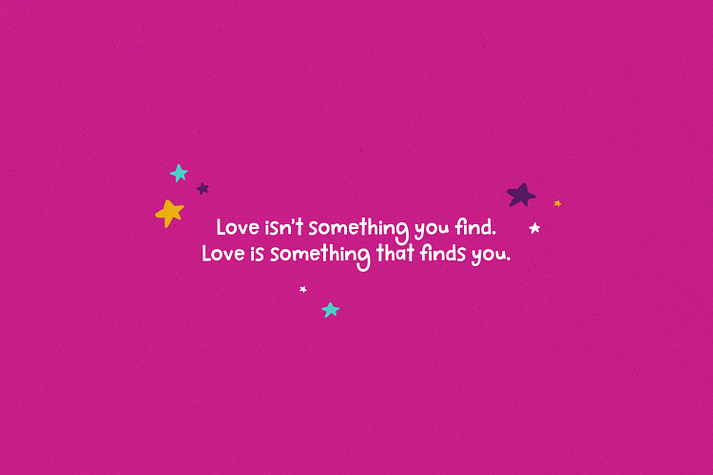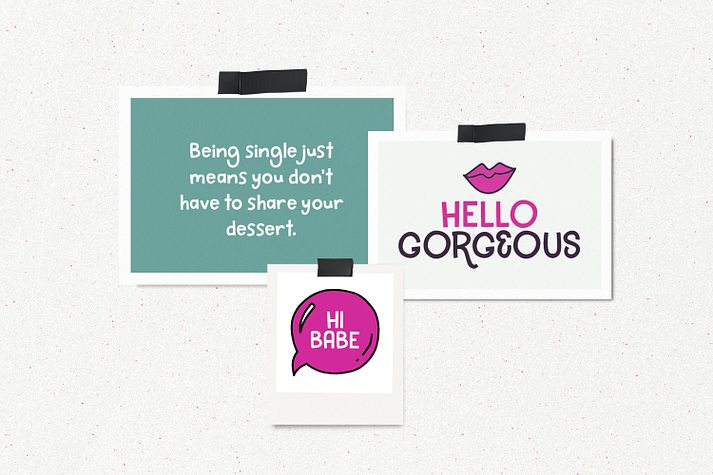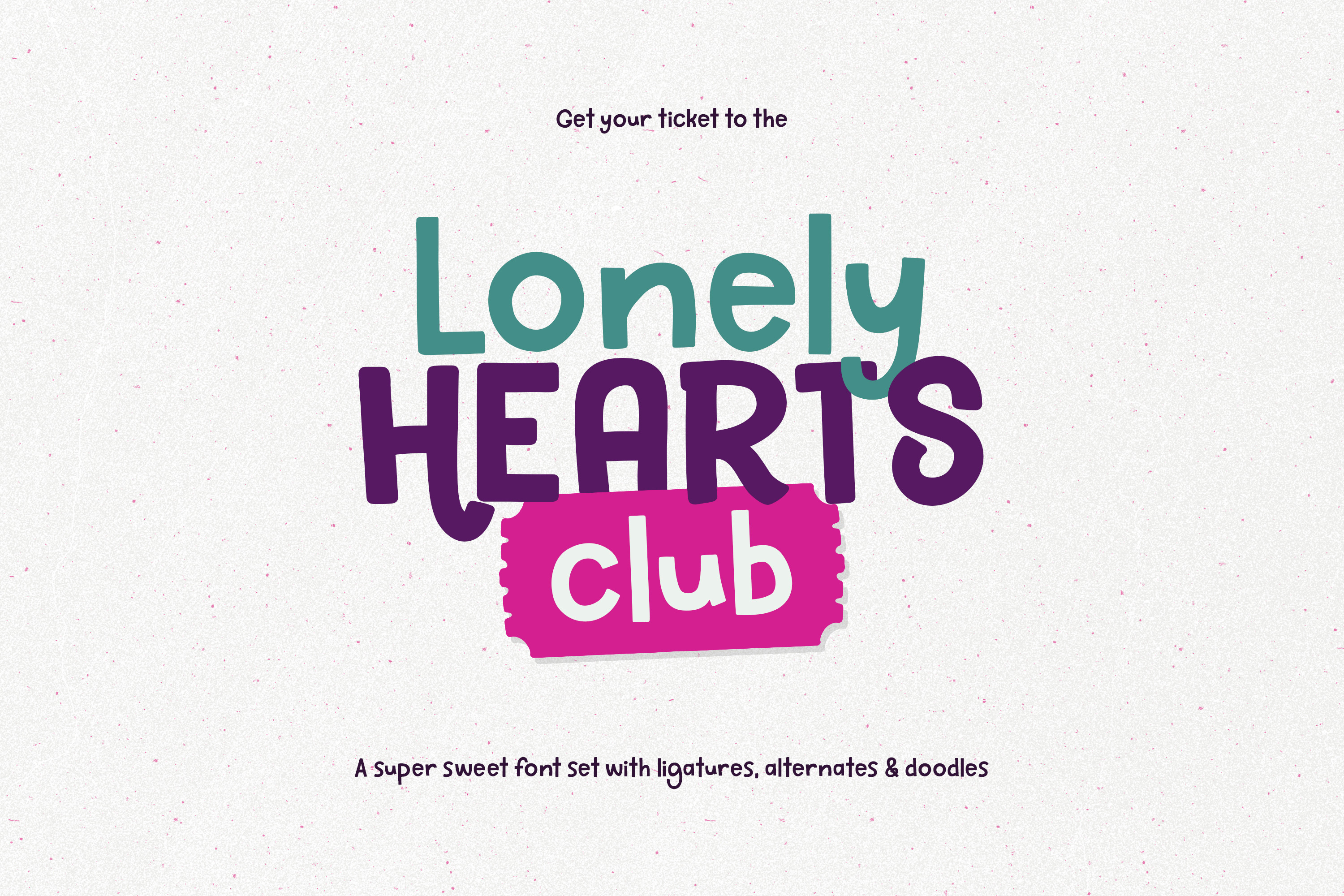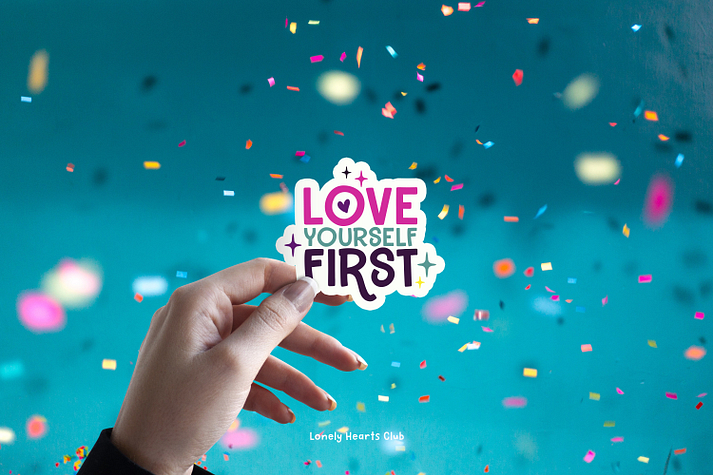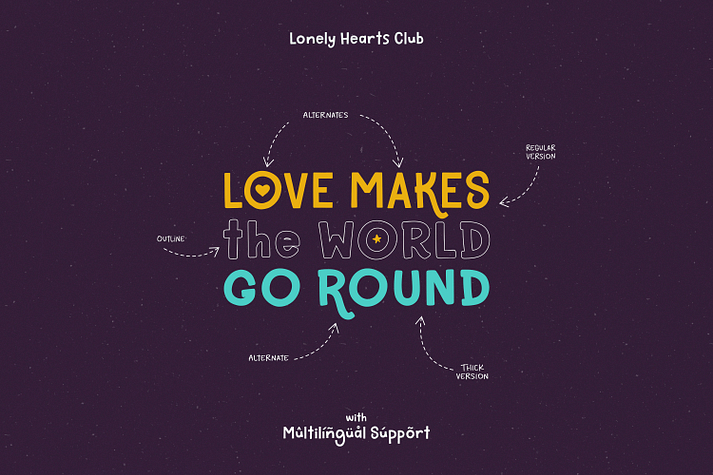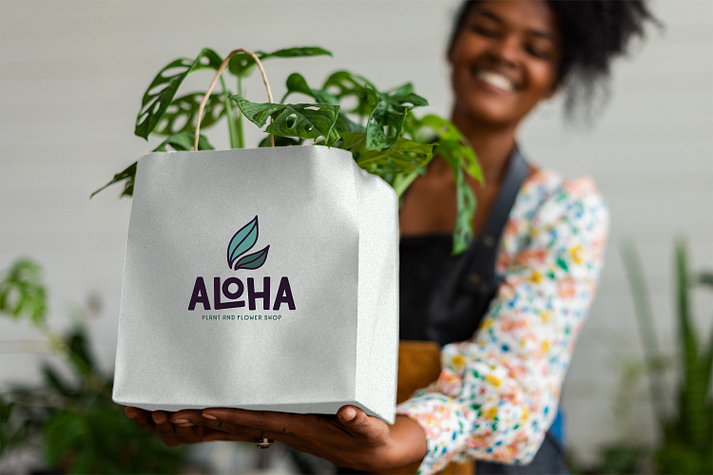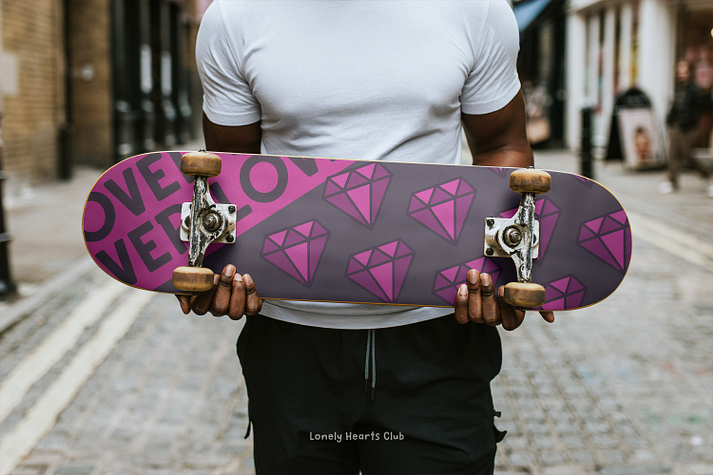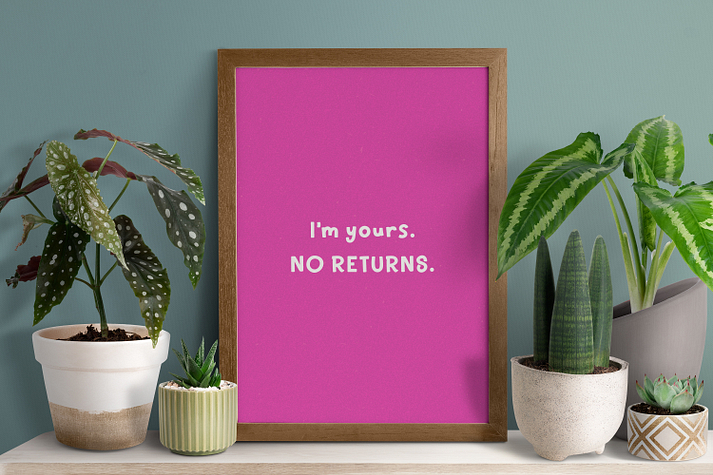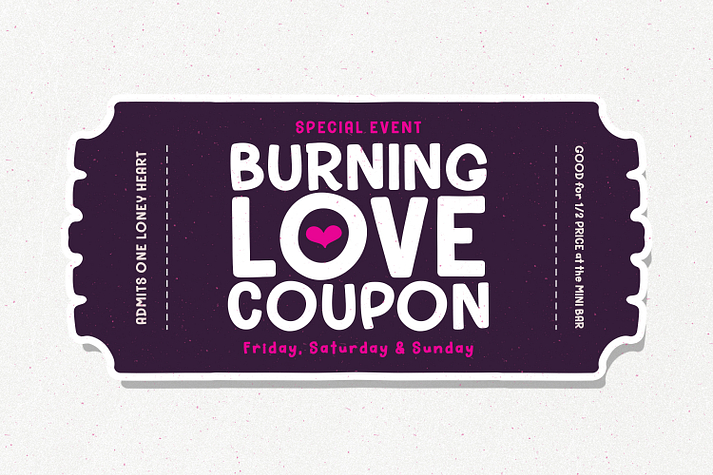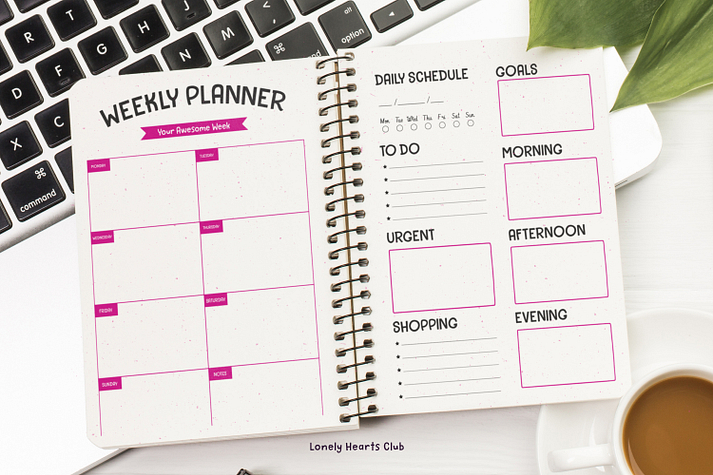
Lonely Hearts Club
Lonely Hearts Club is a hand display and hand drawn font family. This typeface has four styles and was published by MakeMediaCo.
Time to mend that lonely heart with some fun, new design goodies! ????
Introducing Lonely Hearts Club, a clean dual-purpose font. Use the uppercase glyphs for clean, legible headlines, or use both upper & lowercase for stickers, stationary, greeting cards, quotes, labels, packaging, logos, branding, calendars, typography and so much more! ????
• Over two dozen ligatures & alternates (please use Glyphs Panel to access).
Foundry MakeMediaCo.
Styles Hand Display, Hand Drawn